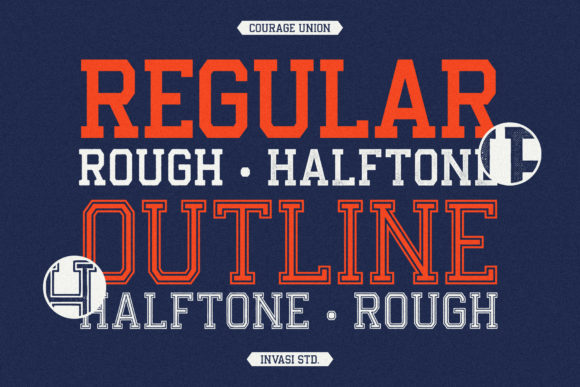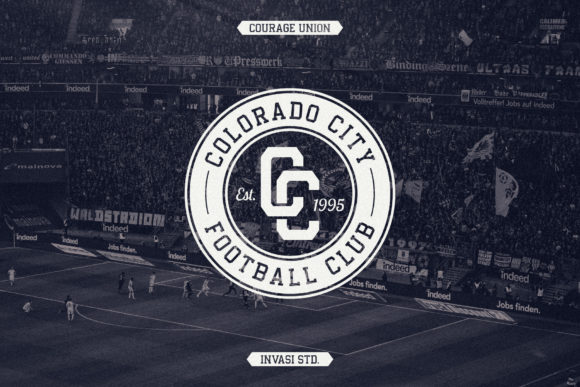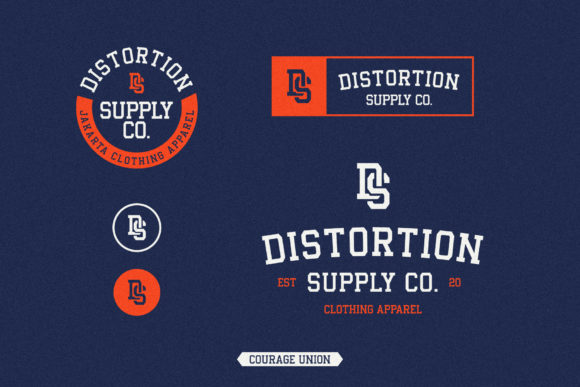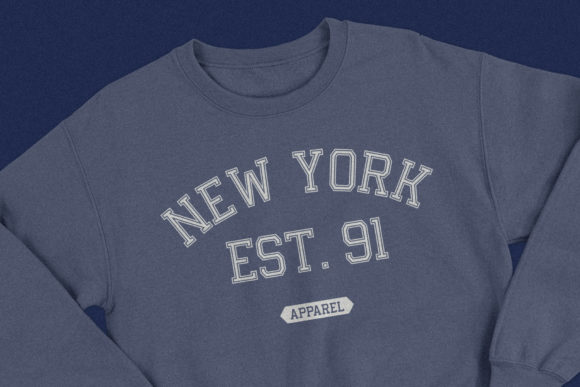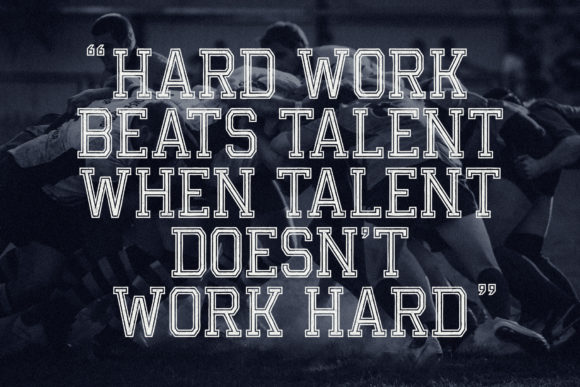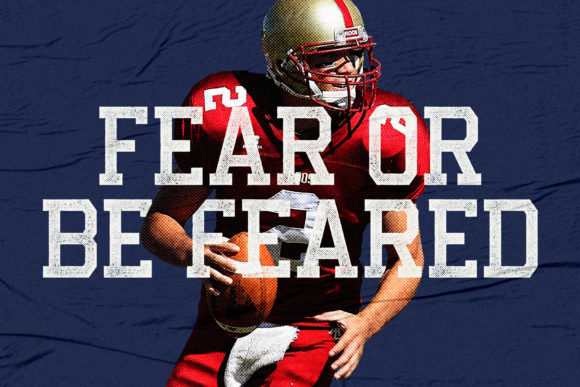
Introduction to Courage Union Font
Courage Union is a cool and bold slab serif font.
It will fit perfectly on each of your designs Have fun with this beautiful font and explore its endless variations.
Key Features of Courage Union Font